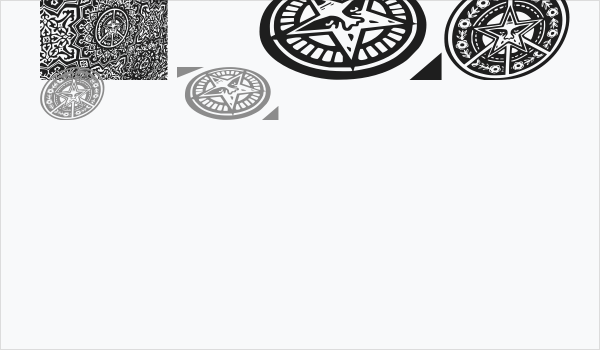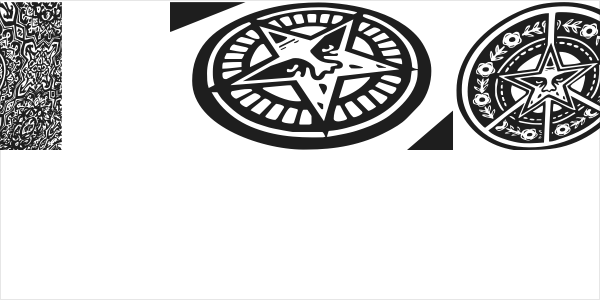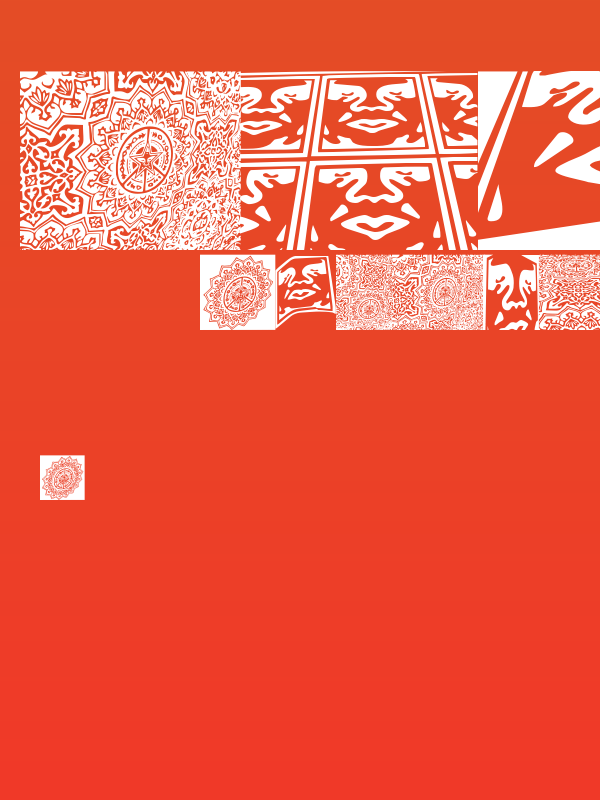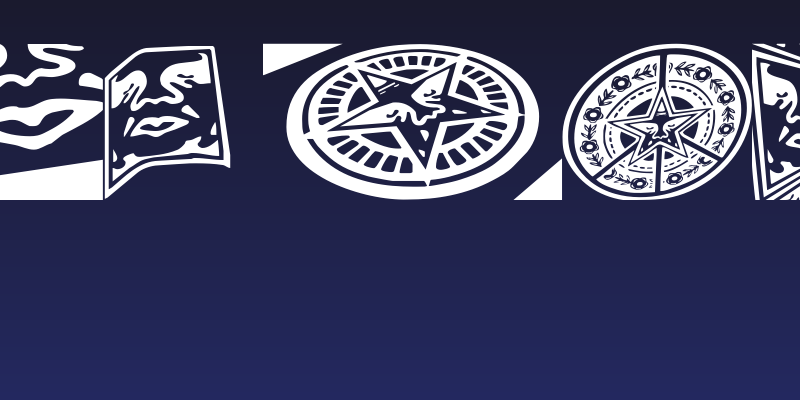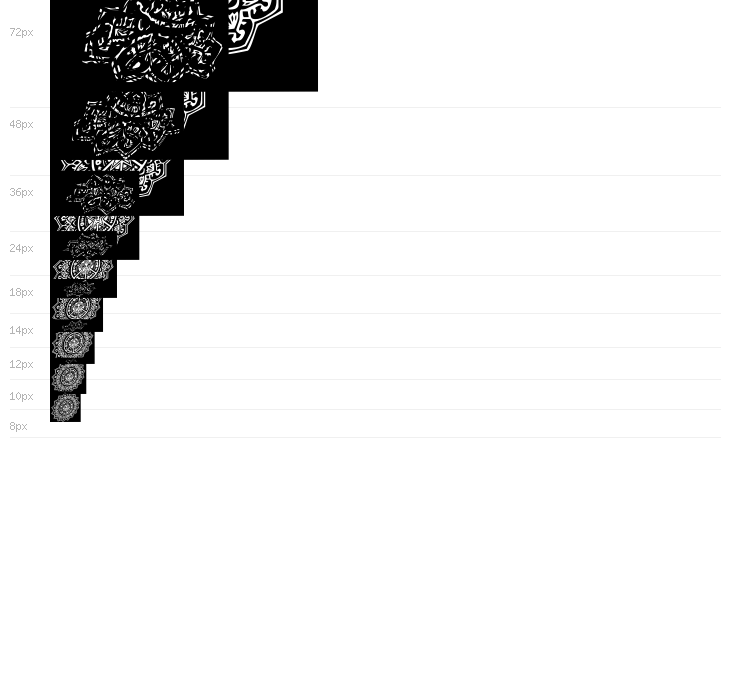
Obey3DCaps Font
Obey3DCaps Description
This is not a traditional font but rather a collection of graphic symbols and images. Each character is represented by a unique design, often featuring intricate patterns or iconic imagery. The designs are bold and visually striking, making them suitable for artistic or decorative purposes. The characters do not follow a standard typographic structure, and instead, each one stands as an individual piece of art. This collection is ideal for projects that require a strong visual impact and a sense of creativity.
| Use Case | Logos, Posters, Artistic Projects |
| Proposed Projects | Ideal for artistic projects, posters, album covers, or any creative work that benefits from bold, graphic imagery. |